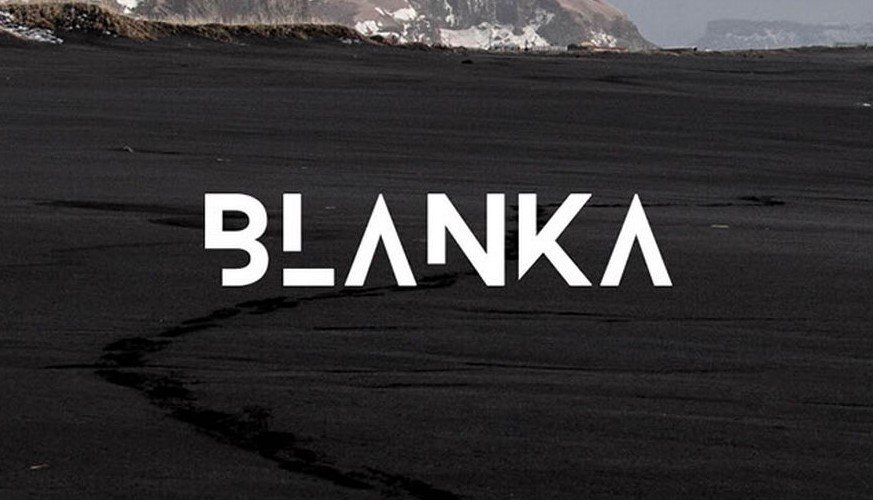
This is ideally a great typeface for graphic designers and website designs. It is one of the great free typefaces which you will be for making modern, cool,
Presenting the sleek and stylish Blanka Font typeface, a remarkable and sophisticated minimalism font. Created and made available by Emmeran Richard, it is perfect when paired with the krinkes script font for a complementary combination.
This is ideally a great typeface for graphic designers and website designs. It is one of the great free typefaces which you will be for making modern, cool, and display projects.